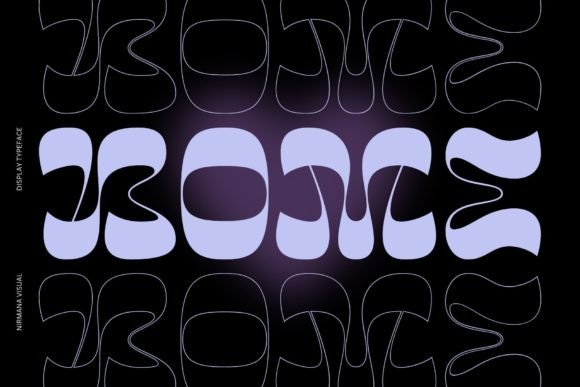
The Bome Font: A Modern Display Font for Creative Projects
I’ll never forget the moment I stumbled upon the Bome font while working on a branding project for a trendy coffee shop. My client wanted a font that was both modern and elegant, with a touch of playfulness. I had been searching for hours, but nothing seemed to fit the bill. That was until I saw Bome – its unique blend of thin and thick lines immediately caught my eye, and I knew I had found the perfect fit.
An Honest Review of Bome Font
What I Love About Bome Font
- ✨ Unique typographic harmony: Bome offers a beautiful balance of thin and thick lines, making it perfect for creating visually appealing designs.
- ✅ Versatility: This font is suitable for a wide range of design projects, including logos, branding, social media posts, advertisements, and product designs.
- 💡 Ease of use: Bome is incredibly easy to read, even at small sizes, making it perfect for body text and captions.
While Bome is an excellent font, there are a few things to keep in mind:
- 🤔 Limited suitability for body text: While Bome is easy to read, its display font nature means it may not be the best choice for long blocks of body text.
- ⚠️ Glyph limitations: Some users have reported that the font lacks certain glyphs, which can be a limitation for certain design projects.
The Story Behind Bome Font
Bome font was designed by a team of typographers who wanted to create a modern display font that would offer a unique typographic harmony. The design process involved experimenting with different line widths and styles to create a font that was both elegant and playful. The result is a font that is perfect for design projects that require a touch of sophistication and whimsy.
Q: What is Bome font?
A: Bome font is a modern display font with thin and thick lines, designed for use in a variety of design projects, including logos, branding, social media posts, advertisements, and product designs.